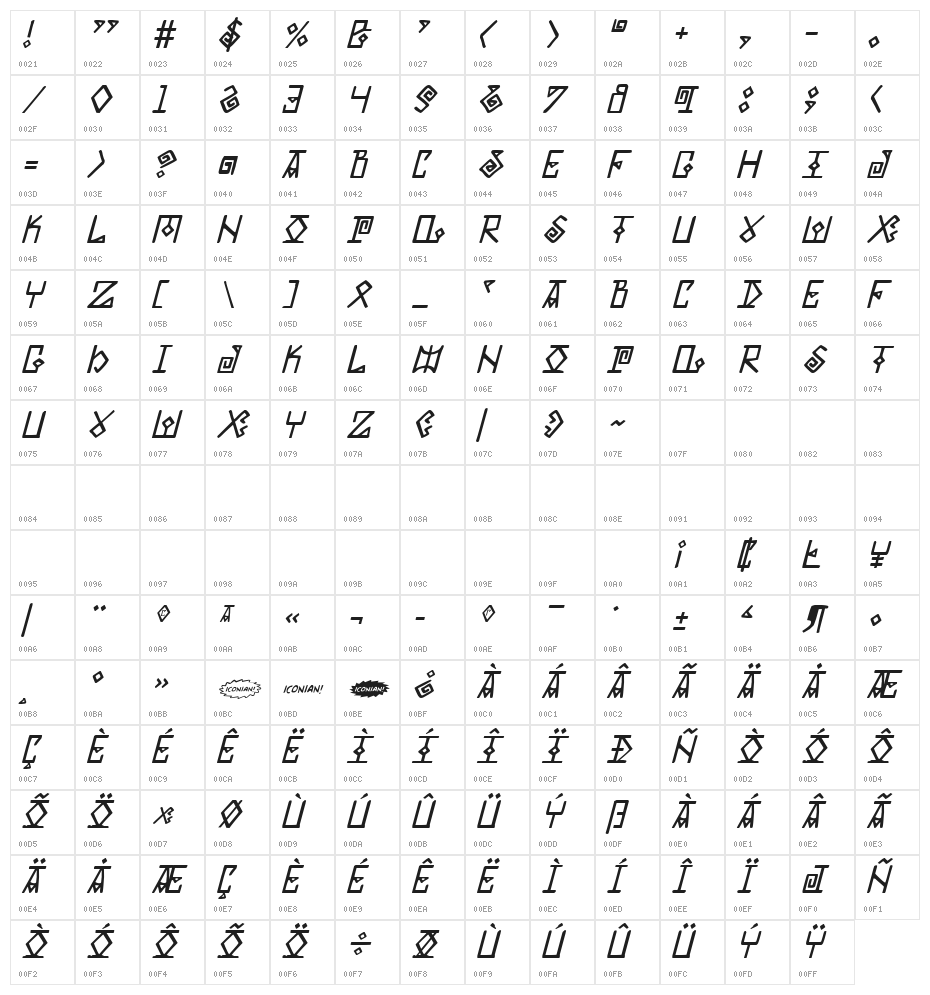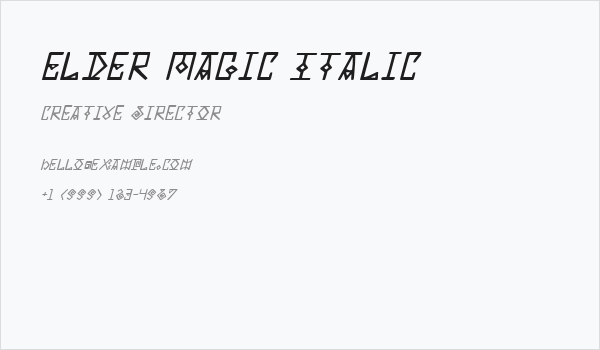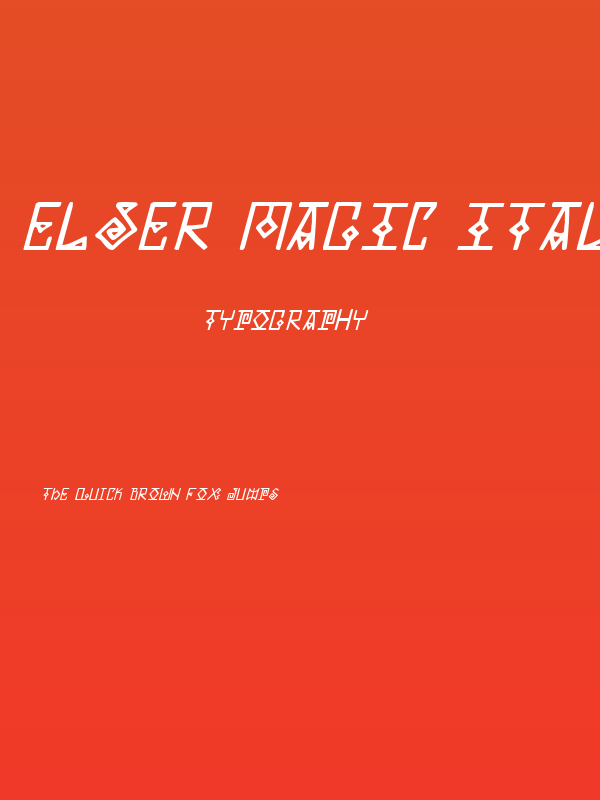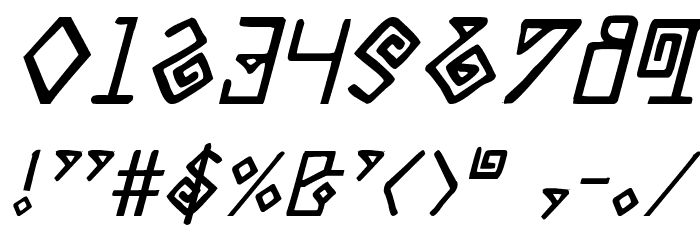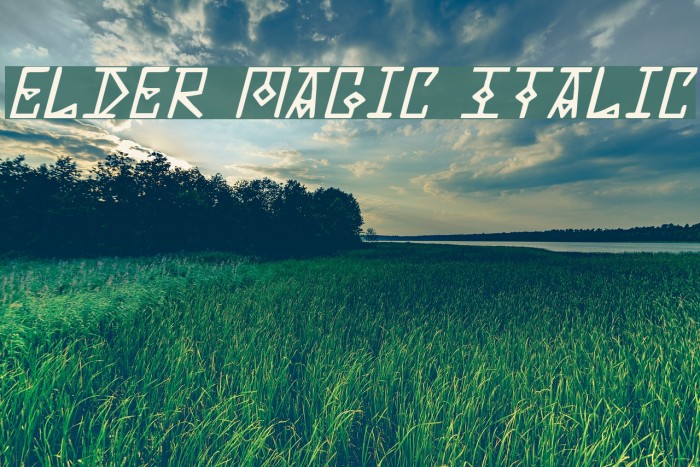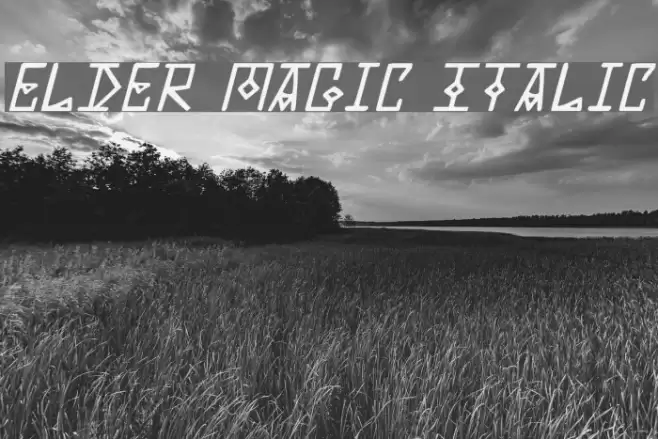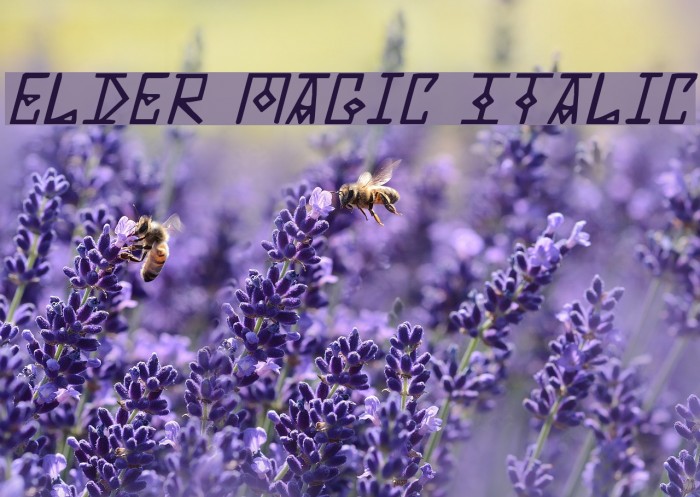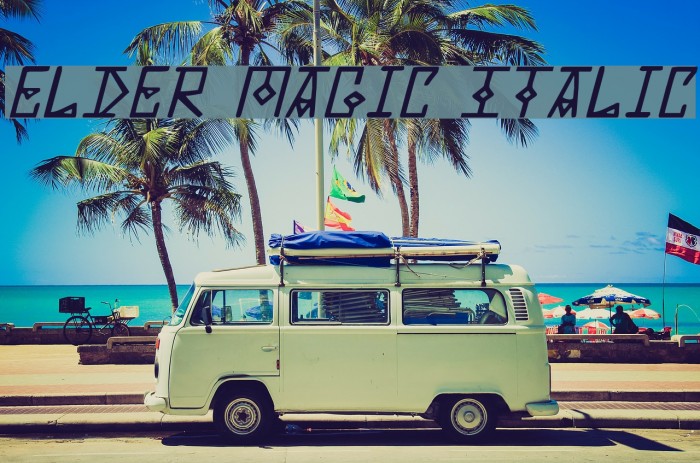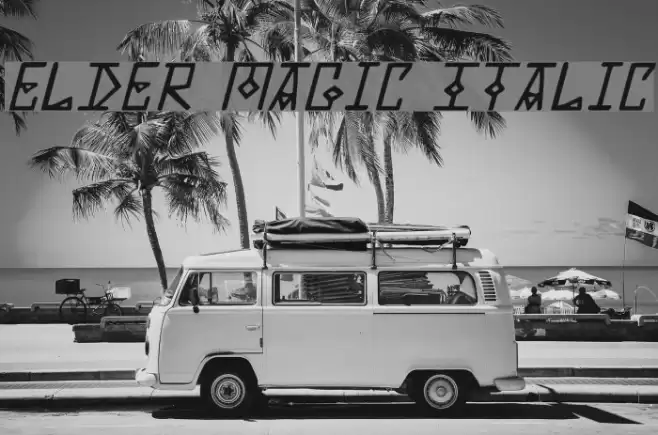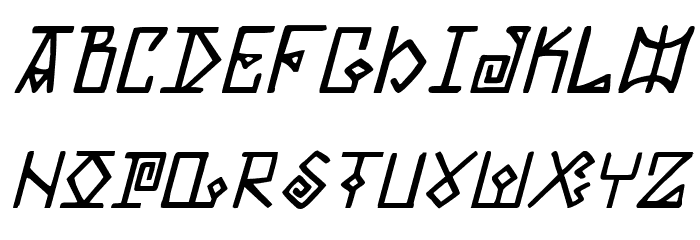
Elder Magic Italic Font
Elder Magic Italic Description
This font features a unique and mystical design, characterized by angular and geometric shapes that evoke a sense of ancient magic. Each letter is crafted with sharp edges and intricate details, creating a visually striking appearance. The font maintains a consistent style across uppercase, lowercase, and numeric characters, with special symbols that complement its overall theme. The design is bold and eye-catching, making it suitable for projects that require a touch of fantasy or mystery.
| Proposed Projects | Ideal for fantasy book covers, game titles, mystical event posters, and themed merchandise. |